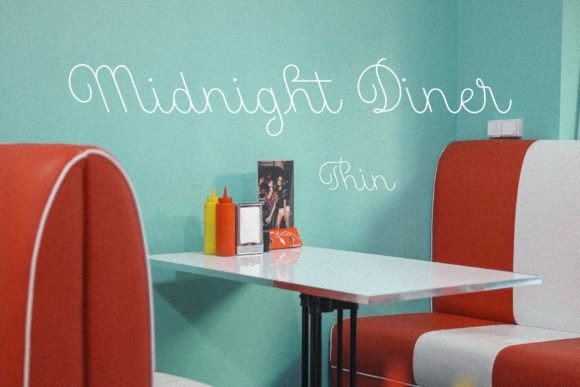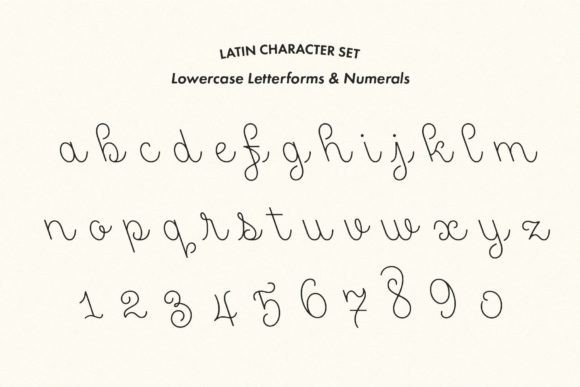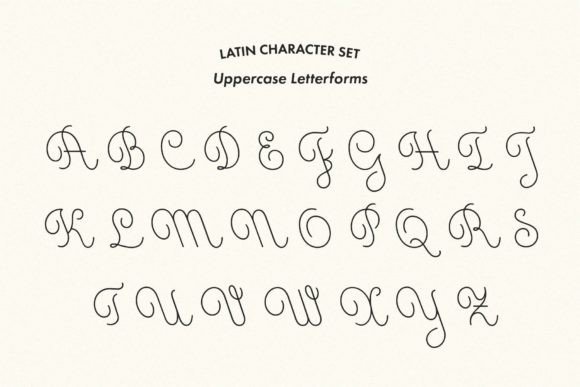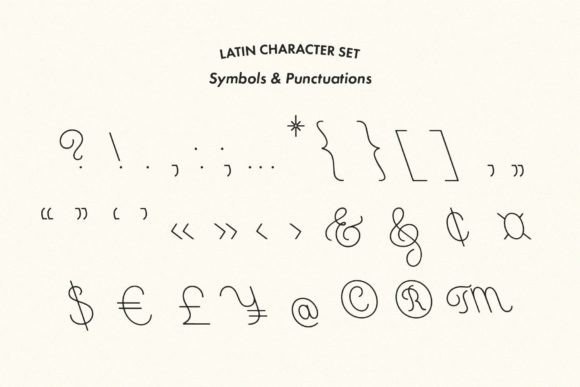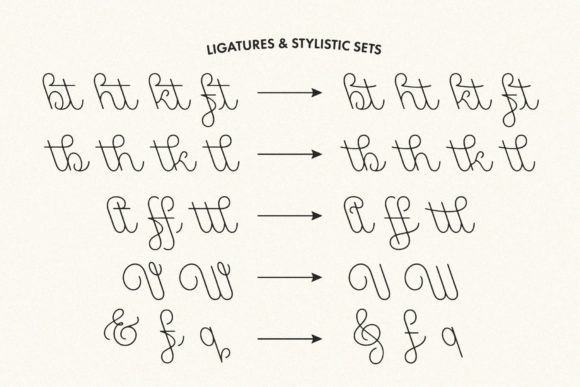
About Midnight Diner Thin Font
Midnight Diner Font is a captivating and versatile typeface that introduces a new dimension to your design projects. As a multi-layered dimensional script font family, it boasts thin, bold, outline, and shadow capabilities, accompanied by a distinctive left-leaning slant. This unique combination allows for a myriad of creative possibilities, giving designers the freedom to experiment with various layer combinations and colors.
The font’s playful nature invites designers to explore the realms of casual, retro, and elegant styles seamlessly. Whether you choose to amplify its casual charm or enhance its retro elegance, Midnight Diner adapts effortlessly to your preferences. This adaptability makes it an ideal choice for a diverse range of applications, including display graphics, logos, signages, packaging, lifestyle imagery, invitations, and more.
One of Midnight Diner’s standout features is its diverse range of stylistic alternates, contextual alternates, and standard ligatures. This extensive selection ensures that designers have countless options to choose from, allowing for a high level of customization in design work. Whether you’re aiming for a specific aesthetic or looking to add unique touches to your typography, Midnight Diner provides the tools to make your designs stand out.
The font family’s delicately crafted design reflects a meticulous attention to detail, ensuring that every aspect contributes to its ease of use and versatility. From the thin and bold variations to the shadow and outline capabilities, Midnight Diner is thoughtfully designed to offer a cohesive and user-friendly experience.
In summary, Midnight Diner Font is more than just a typeface; it’s a creative playground for designers. Its multi-layered features, left-leaning slant, and extensive range of alternates make it a powerful tool for crafting distinctive and engaging designs. With a thoughtful design process that considers every little detail, Midnight Diner stands out as a versatile and captivating addition to any designer’s toolkit.